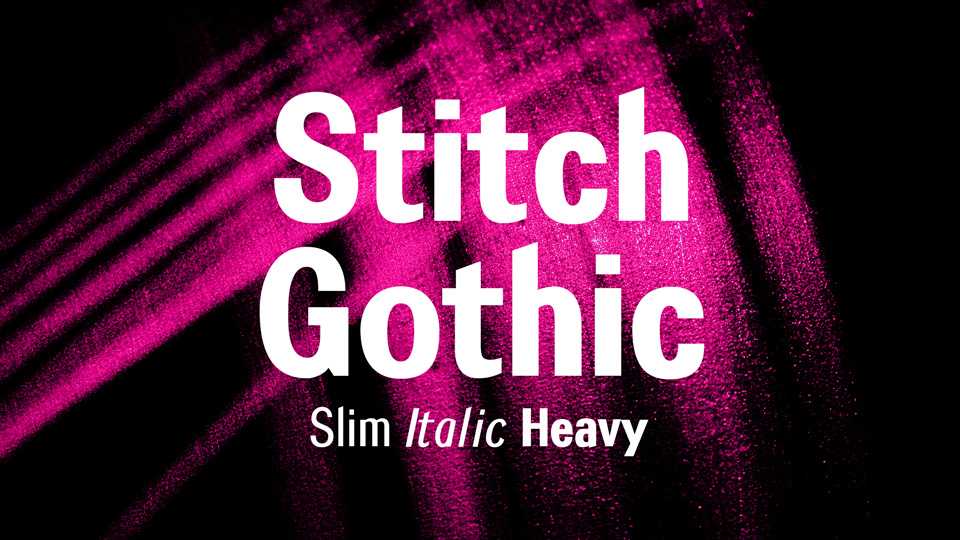
Download Stitch Gothic typeface, a modern sans serif font family in Slim, Heavy and Italic styles. Stitch Gothic works well for both titles and texts, suits for posters, headlines, branding, media and others.
Designer: Nick Cottrell